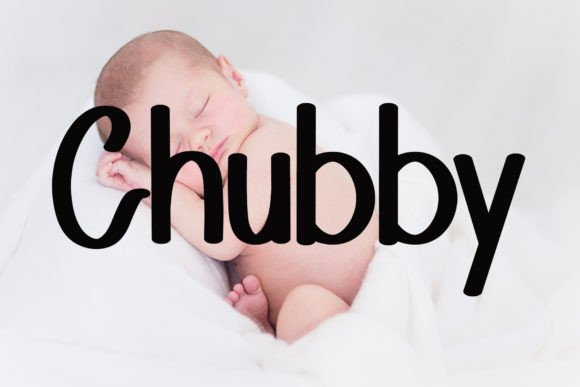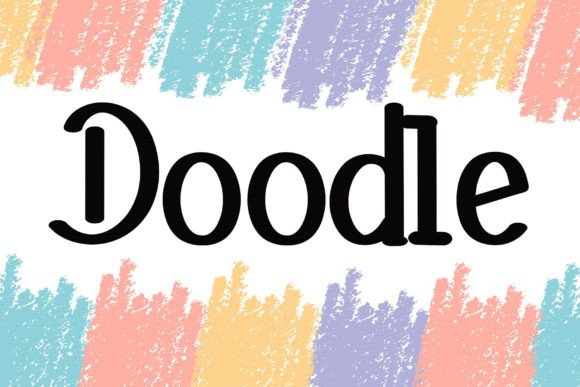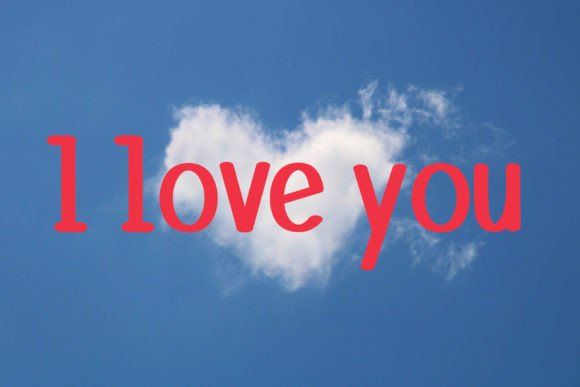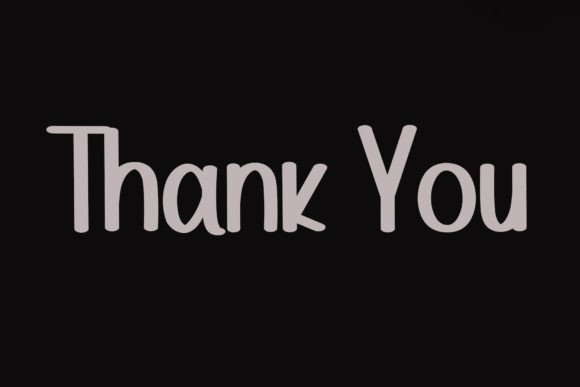
The Perfect Font for Your Creative Projects
Have you ever stared at a blank page, struggling to find the right font to bring your design to life? We’ve all been there. As designers, we’re constantly on the lookout for the perfect font to capture the essence of our creative vision. That’s where the Gazelle Font comes in – a classic and simple handwritten script that’s sure to add a touch of elegance to your next project.
Created with a random and freestyle approach, the Gazelle Font is perfect for logotype, headline fonts, and corporate identities. Its versatility makes it a valuable asset for designers, whether you’re working on a branding project, designing a poster, or creating a logo for a music or movie release. With the Gazelle Font, you can add a personal touch to your designs and make them stand out from the crowd.
Gazelle Font Key Features
- Unique Characteristics: The Gazelle Font features a unique blend of modern and vintage elements, with distinctive letterforms and a dynamic feel that sets it apart from other fonts.
Gazelle Font Review
At first glance, the Gazelle Font has a lot to offer. ✨ The elegant script style and rounded edges give it a unique and sophisticated look that can elevate any design project. The font is highly versatile, making it suitable for a wide range of applications, from wedding invitations to magazine headers. The letterforms are well-spaced, making it easy to read, even at smaller font sizes.
However, there are some limitations to consider. ⚠️ One of the main drawbacks is the font’s limited character set. It’s missing some essential characters, such as Cyrillic and Greek alphabets, which may be a problem for designers working on international projects. Additionally, the font’s ligature system is not as comprehensive as some other fonts, which can lead to inconsistent spacing and alignment issues.
- Unique script style with rounded edges
- Highly versatile and suitable for various applications
- Well-spaced letterforms for easy readability
- Supports Latin and some non-Latin languages
Overall, the Gazelle Font is a great choice for designers looking for a elegant and sophisticated script font. While it has some limitations, its unique style and versatility make it a valuable addition to any design library.
Gazelle Font: A Practical Application Guide
Tips for Getting the Most Out of Gazelle Font
Use Gazelle Font for creating bold headings and titles. It’s ideal for use in magazine covers, posters, and other eye-catching designs. Experiment with different font sizes and styles to add emphasis to your text.
Gazelle Font is ideal for use in creative fields such as graphic design, advertising, and publishing. It’s perfect for creating bold headings and titles that grab attention. Use it in your next design project to add a touch of sophistication and elegance.